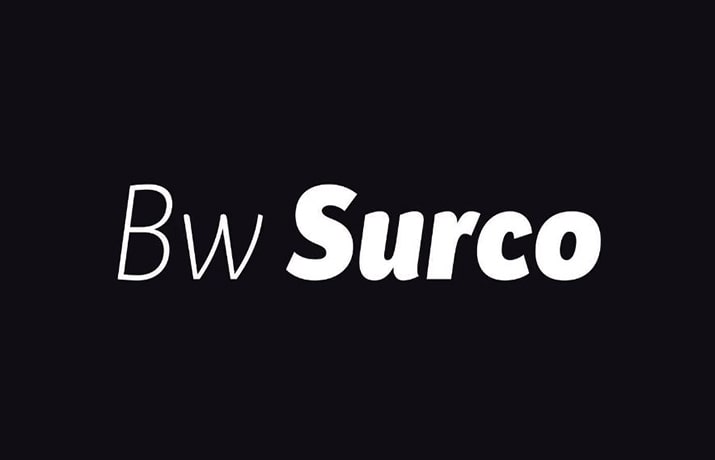
Bw Surco font is a fresh and optimistic humanist sans serif with hints of hand strokes. It has a soft, rounded shape, and a balanced x-height.
And the contrast between roman and true italics all build toward a very practical font family with a friendly and informal personality.
For medium-length text, medium weight is just perfect. While light and dark colors stand out when used for large text, bringing uniqueness to your creative projects such as branding, packaging, etc.
A Spanish font designer Alberto Romanos is the primary designer of this font family. And it was shared by Branding with Type on 1 June 2016.
Among its deep features, it can be used for advertising beautiful logos, card designs, banner ads, and posters. Also titles and branding, packaging, watermarks, website content, fashion magazines, printing materials, magazine headings, web layouts, titles, flyers, etc.
According to the primary designer “It comes in 12 styles supporting all European Latin and Cyrillic languages, with stylistic variations for Bulgarian, Serbian and Macedonian.